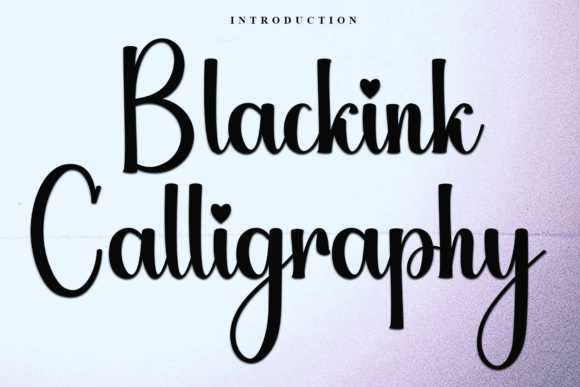
The Magic of the Holiday Season: Blackink Calligraphy Font
As the snowflakes start to fall and the fireplace crackles to life, the holiday season is in full swing. You’re rummaging through your craft supplies, searching for the perfect way to add a touch of magic to your greeting cards and gift tags. Suddenly, your eyes land on a font that makes your heart skip a beat – the enchanting Blackink Calligraphy Font.
This festive and merry typeface is the perfect companion for your holiday designs. With its decorative elements and whimsical flair, it adds a sense of wonder to your words. Whether you’re a professional designer or a crafty enthusiast, the Blackink Calligraphy Font is a valuable addition to your toolkit. Its PUA encoding makes it easy to access all the amazing glyphs and ligatures, allowing you to unleash your creativity and bring your designs to life.
Blackink Calligraphy Font Key Features
- Unique Characteristics: Blackink Calligraphy Font is a modern calligraphy font designed to give a unique touch to any design. It features elegant, flowing lines and subtle flair, making it perfect for invitations, logos, and other creative projects.
- Language Support: Supports multiple languages, including Latin, Cyrillic, and Greek alphabets, making it a great choice for global design projects.
- Weight and Style: Available in 4 weights (Light, Regular, Medium, and Bold) and 2 styles (Regular and Italic), providing flexibility in design applications.
Blackink Calligraphy Font Review
Overall, I was impressed with the Blackink Calligraphy Font. It’s a beautiful, elegant font that’s perfect for adding a touch of sophistication to any design project. ✨
Here are some of the things that I like about this font:
- Unique, cursive design that’s perfect for titles, headings, and quotes
- Good legibility, even at smaller font sizes
- Supports a wide range of languages, making it a great option for multilingual designs
- Available in various weights and styles, including bold, italic, and regular
- May not be the best choice for body text, as it can be a bit difficult to read at smaller font sizes ⚠️
- Limited character set, which may not be suitable for designs that require a wide range of special characters
Overall, I would definitely recommend the Blackink Calligraphy Font for designers looking for a high-quality, elegant font for their projects. It’s a great choice for titles, headings, and quotes, and its unique design is sure to add a touch of sophistication to any design.
Blackink Calligraphy Font is ideal for:
- Wedding vows and ceremony scripts
Remember to experiment with different font sizes, styles, and combinations to get the most out of this beautiful calligraphy font.
Q: Does the Blackink Calligraphy Font support ligatures and swashes?
Yes, the Blackink Calligraphy Font includes a range of ligatures and swashes that can be accessed through the font’s OpenType features. To use these features, you’ll need to have a design software that supports OpenType, such as Adobe Illustrator or InDesign.